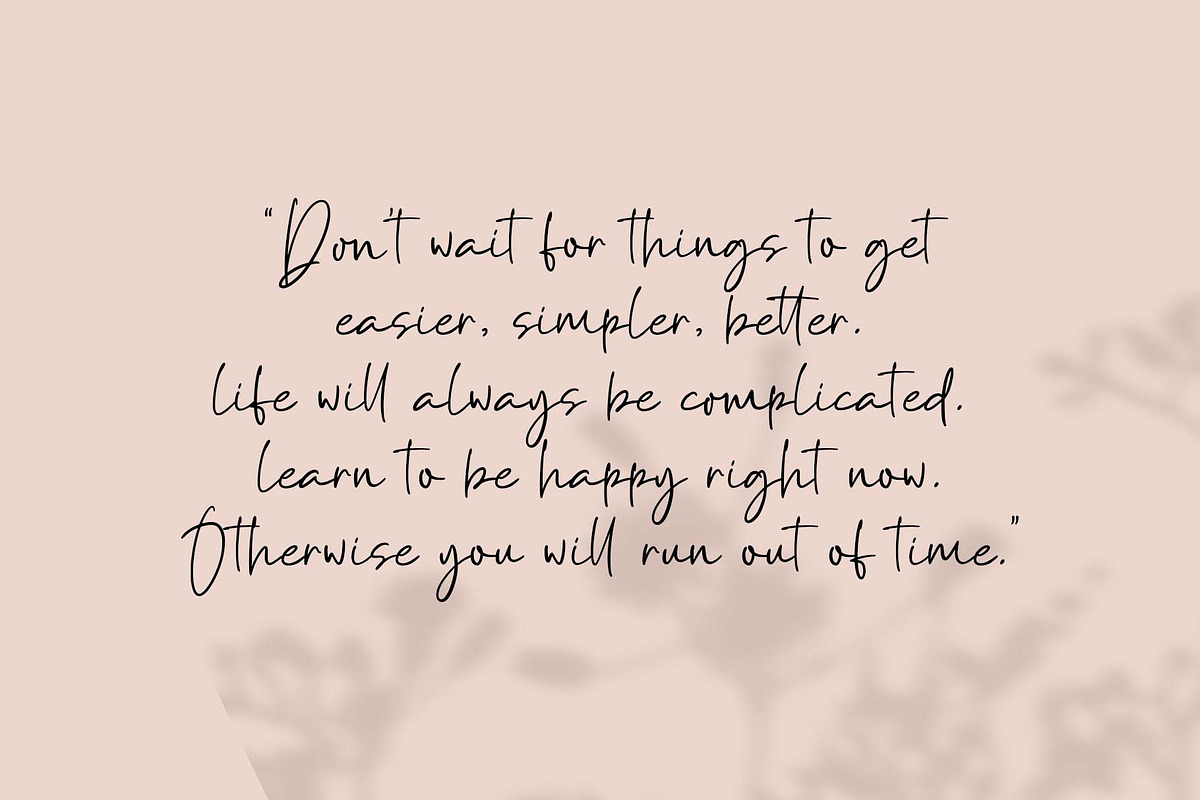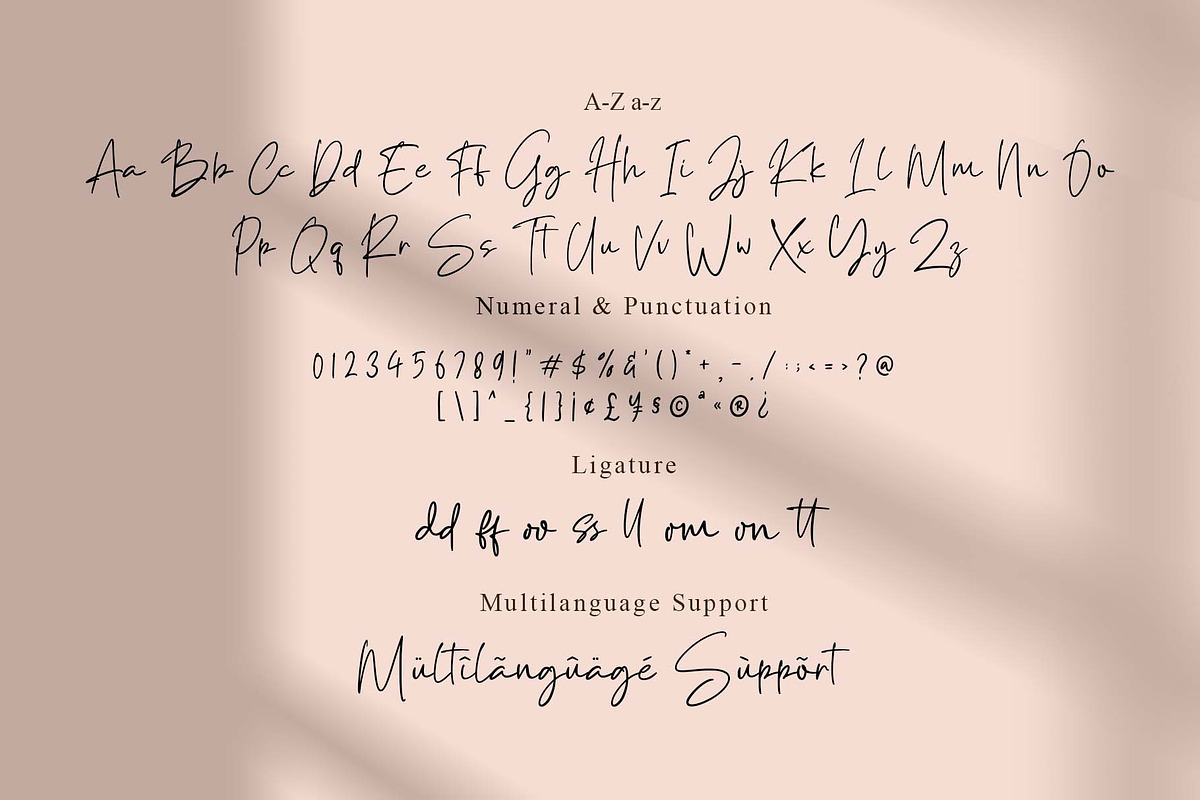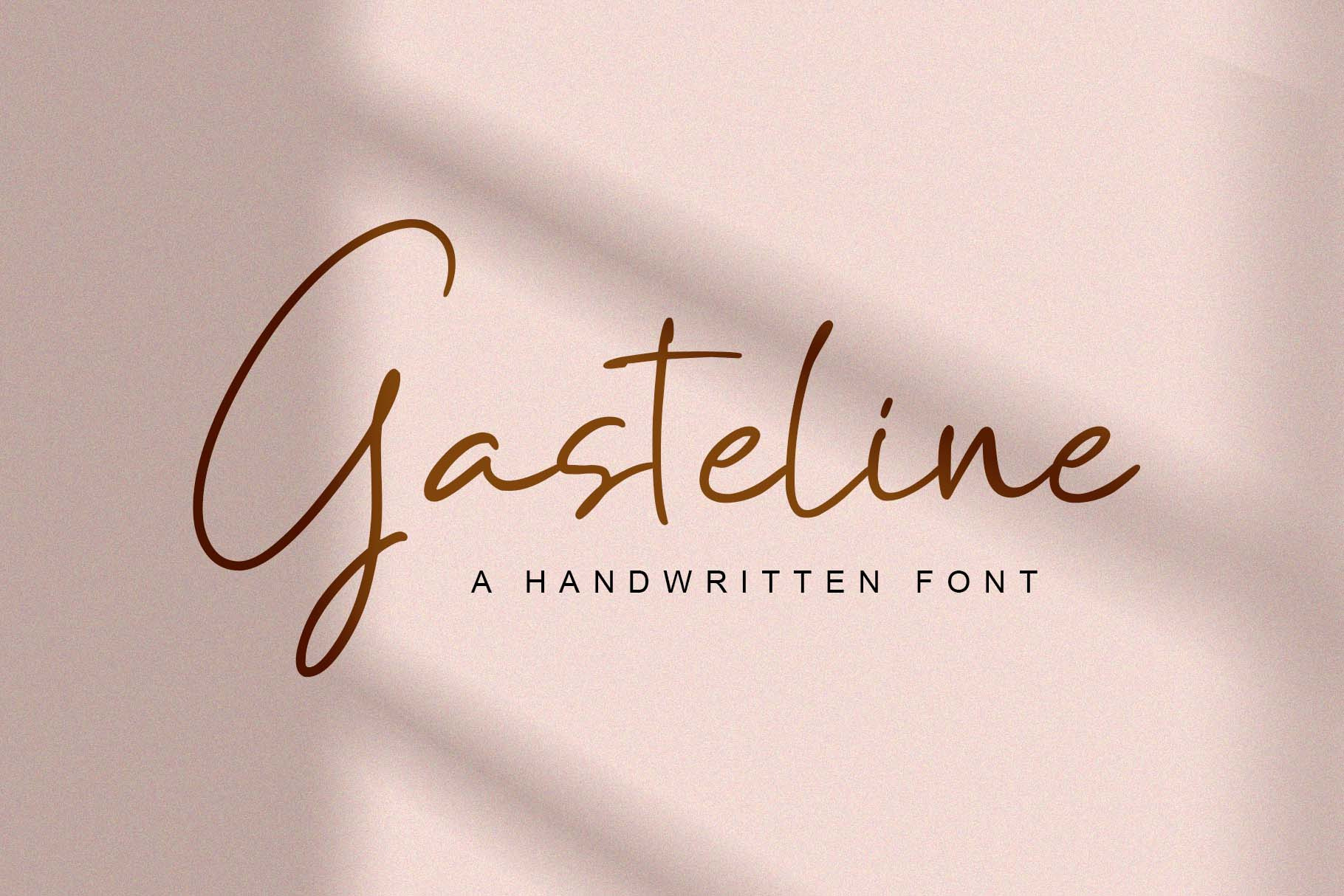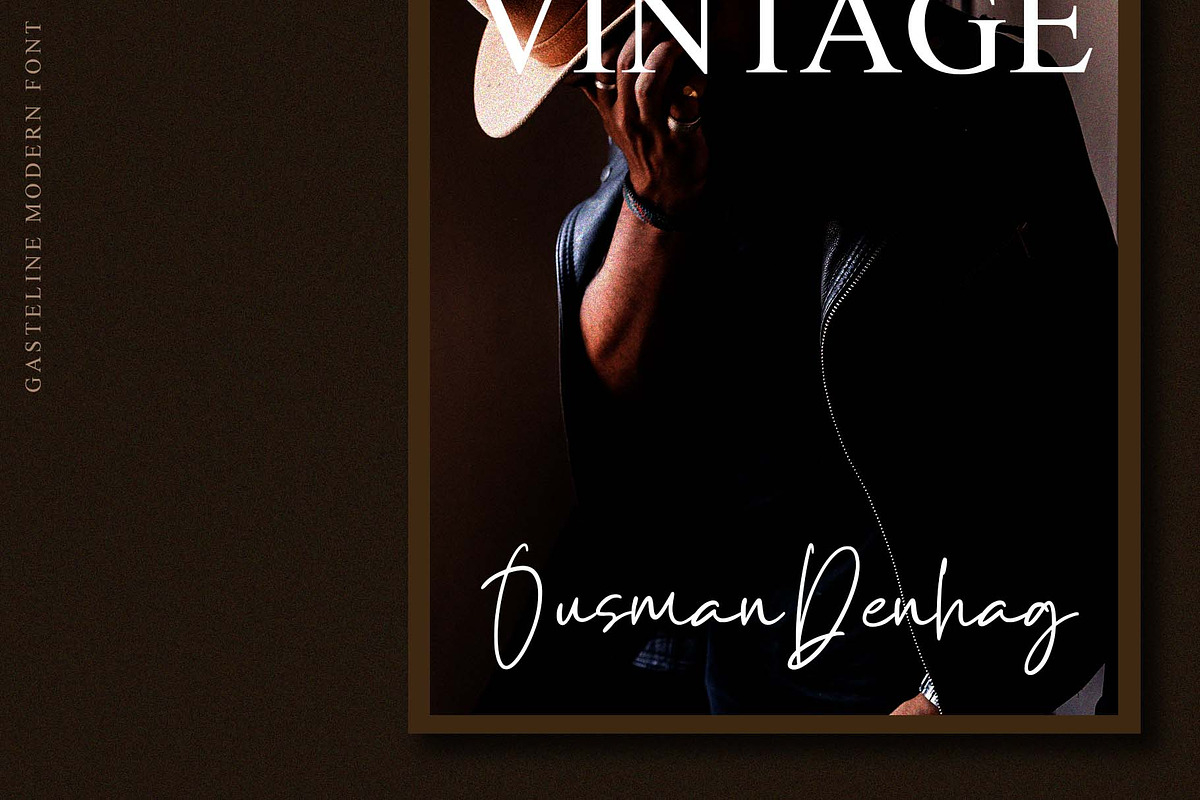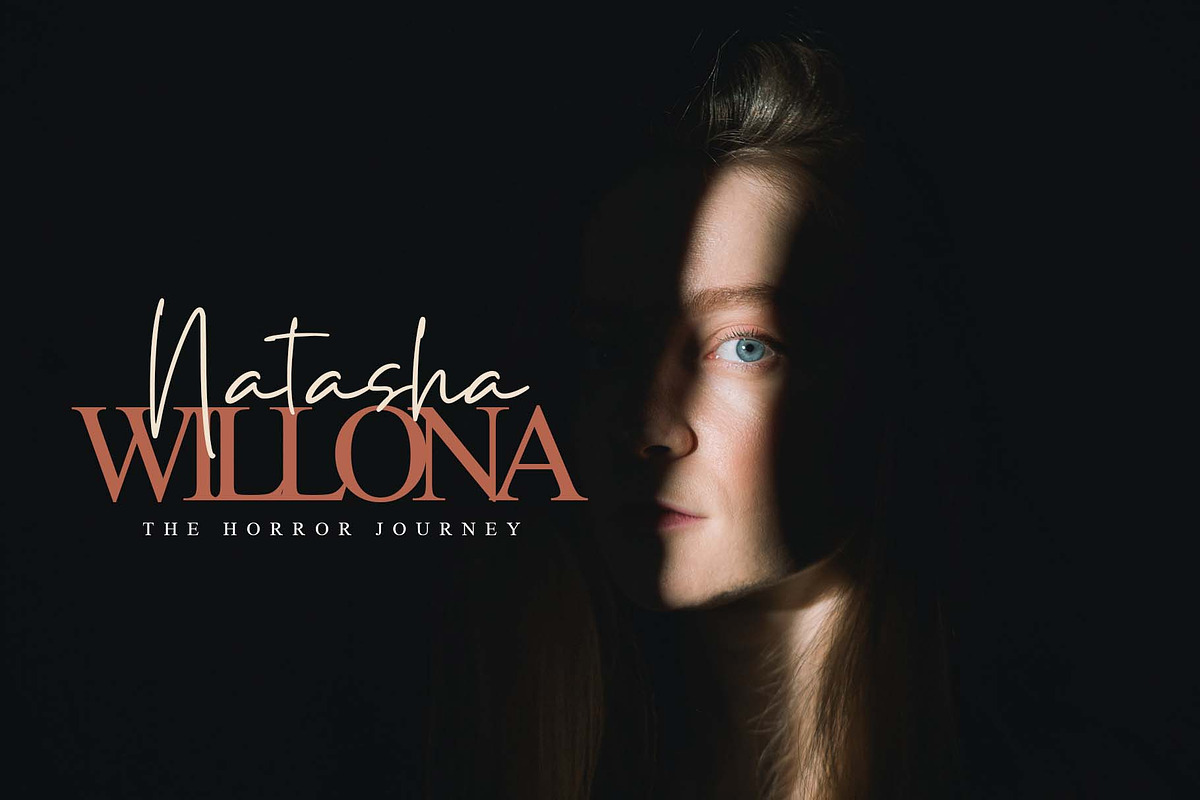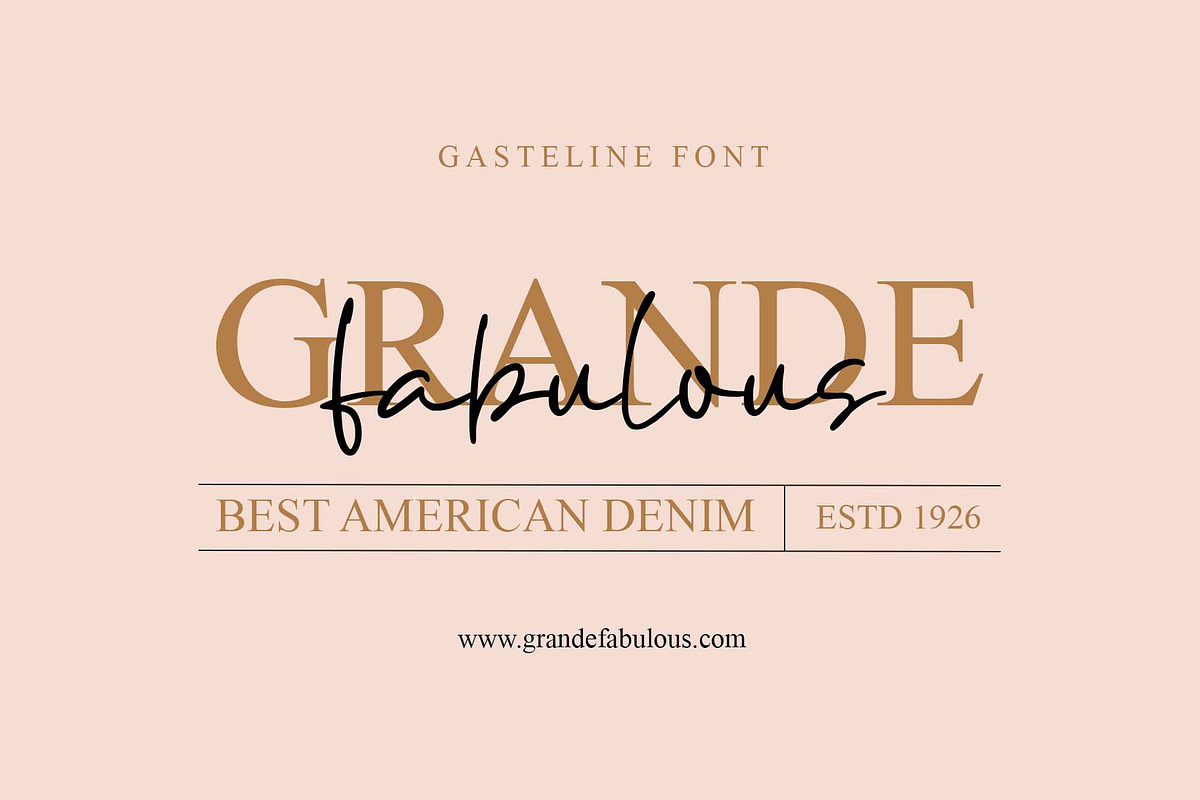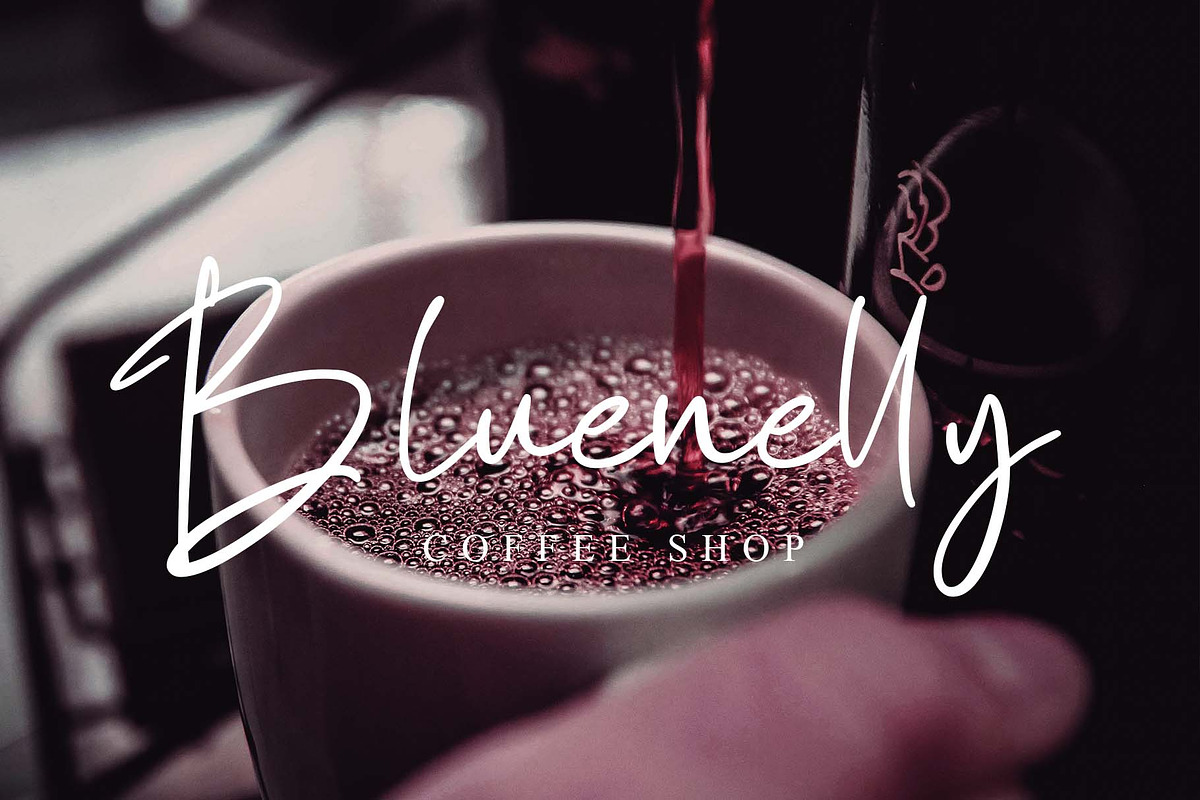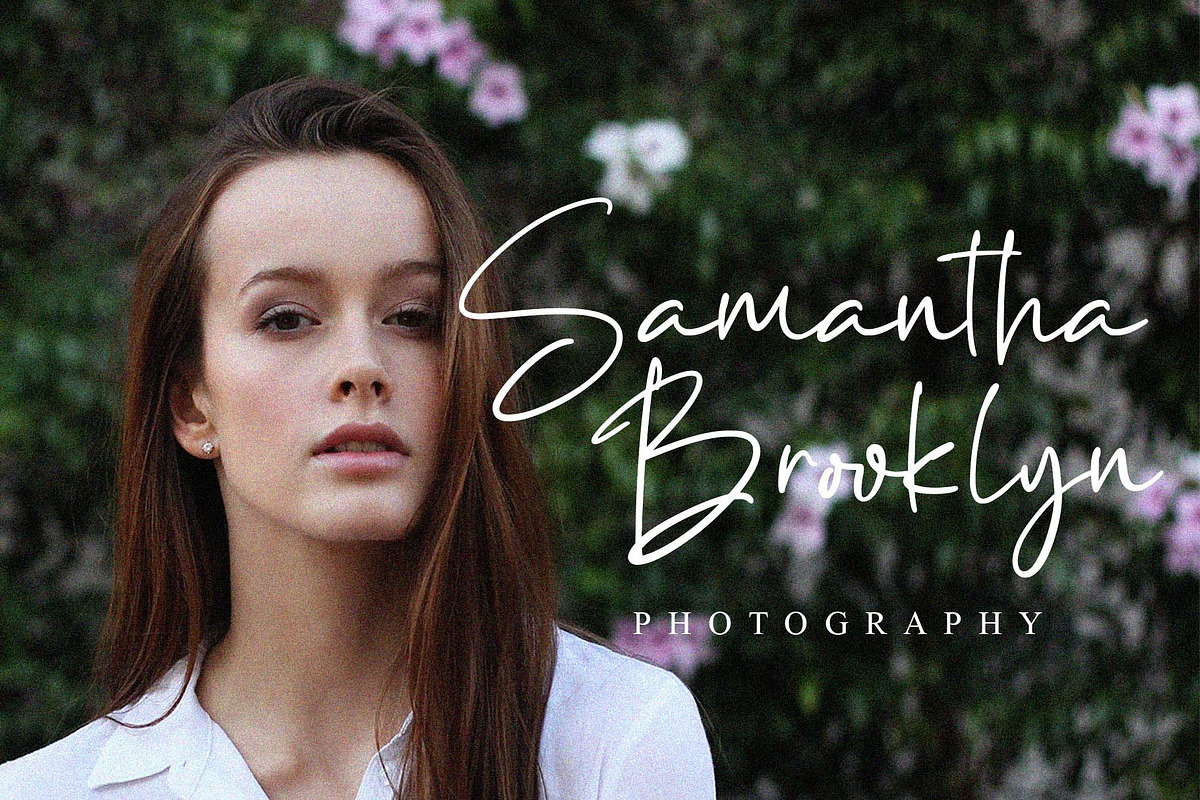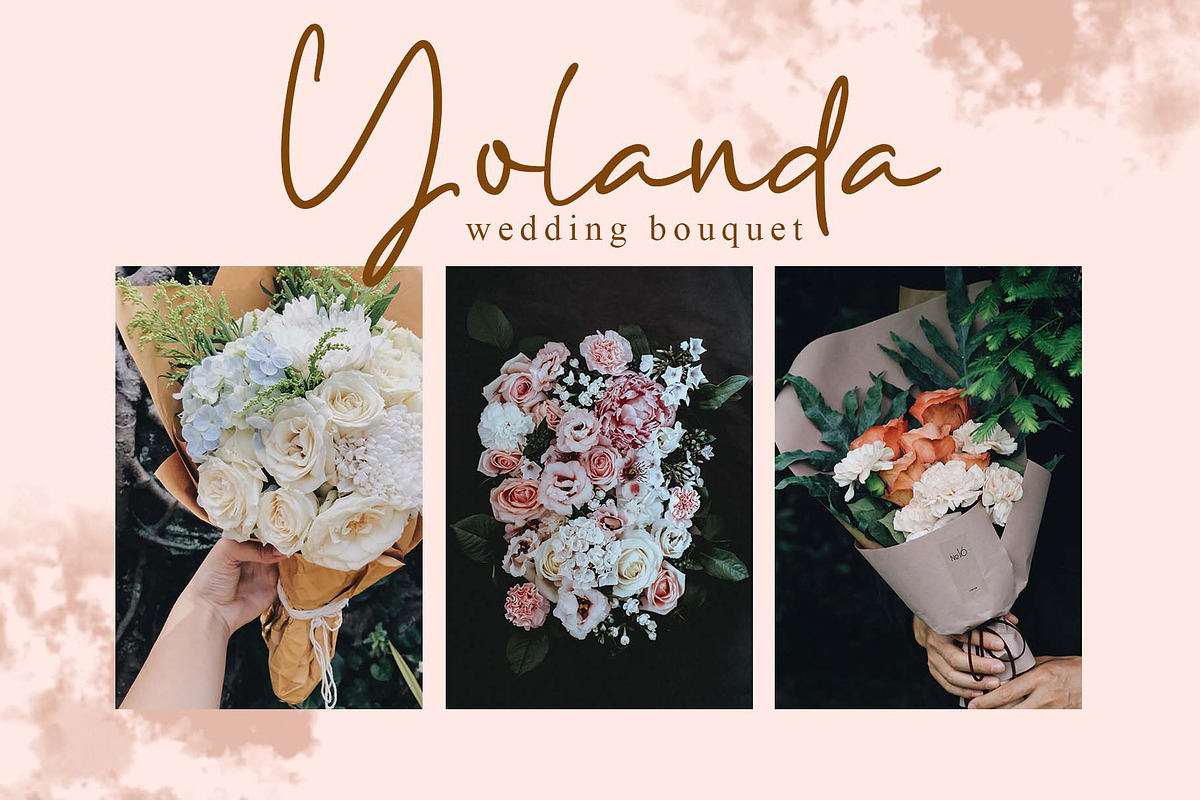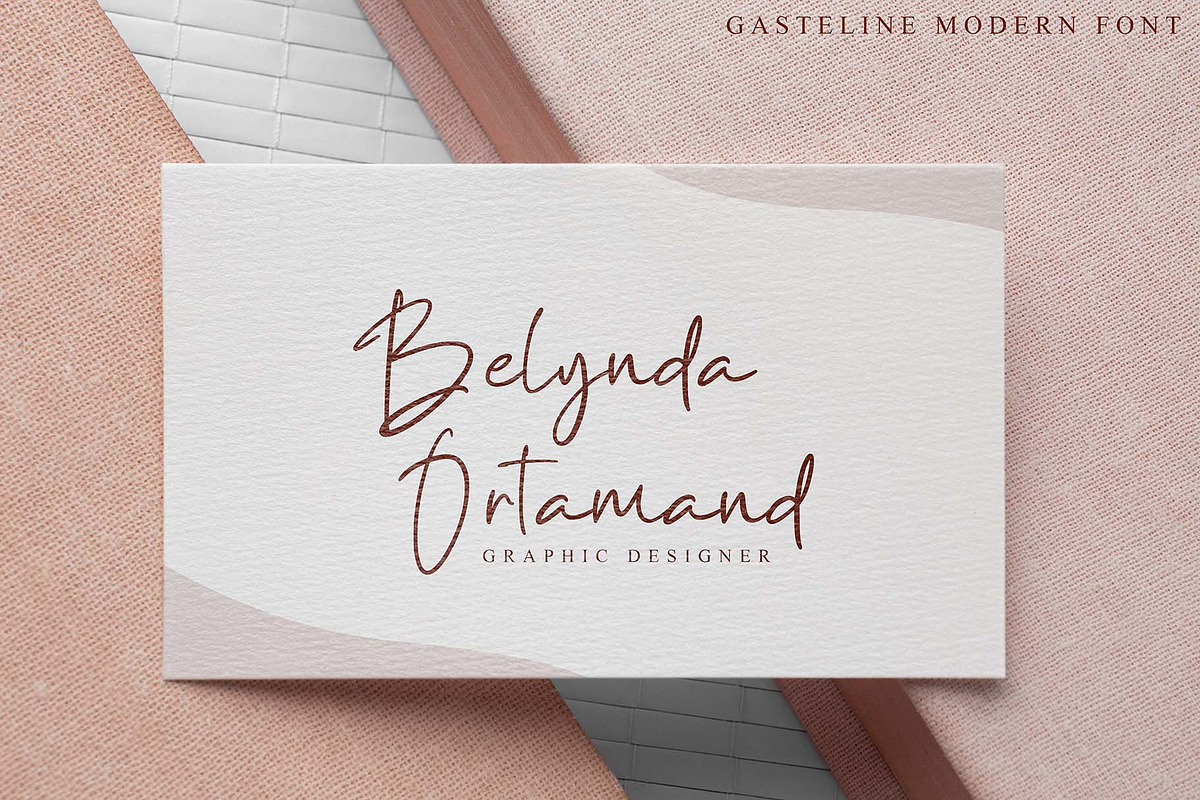
Gasteline - Casual Font
Gasteline is a stylish and modern handwritten font with a natural flow of handdrawn touch, it's perfect for branding, signature, wedding invites, and more.
Gasteline includes full set of uppercase & lowercase letters, numeral and punctuations, and ligatures.